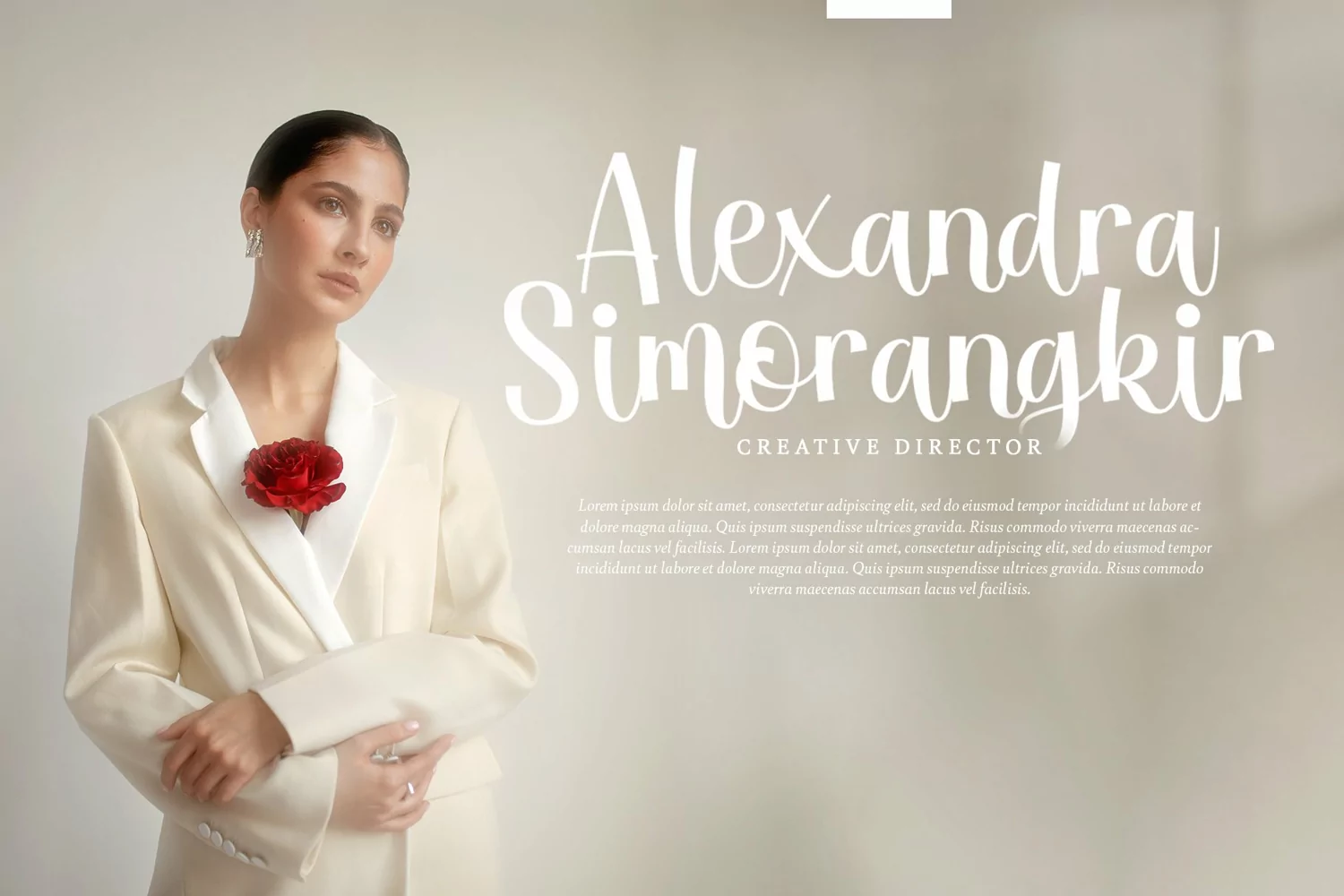
Nadiya Script is a elegant, subtle, and modern script typeface. It has beautiful character and comes with a matching swash feature make this font perfect match for any project.